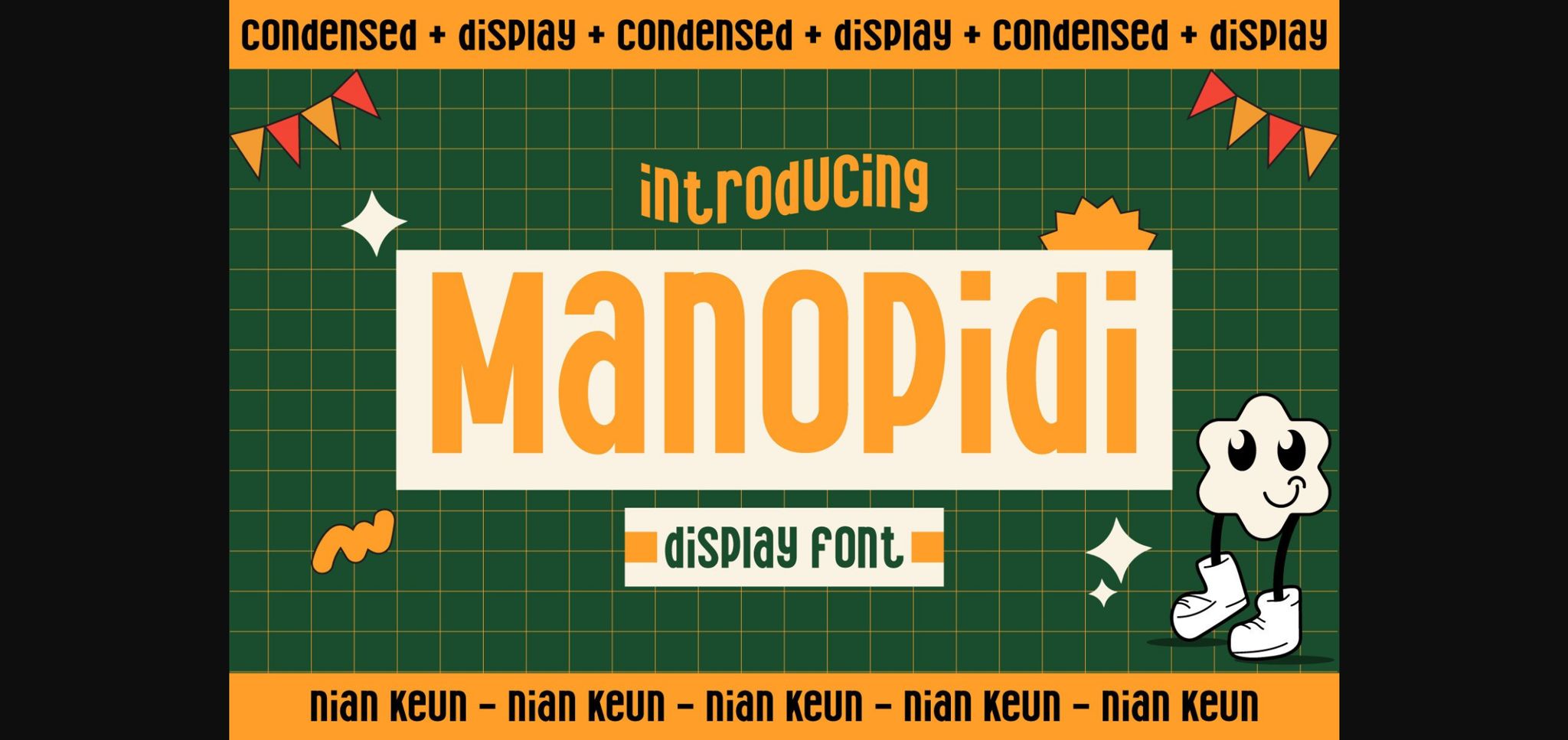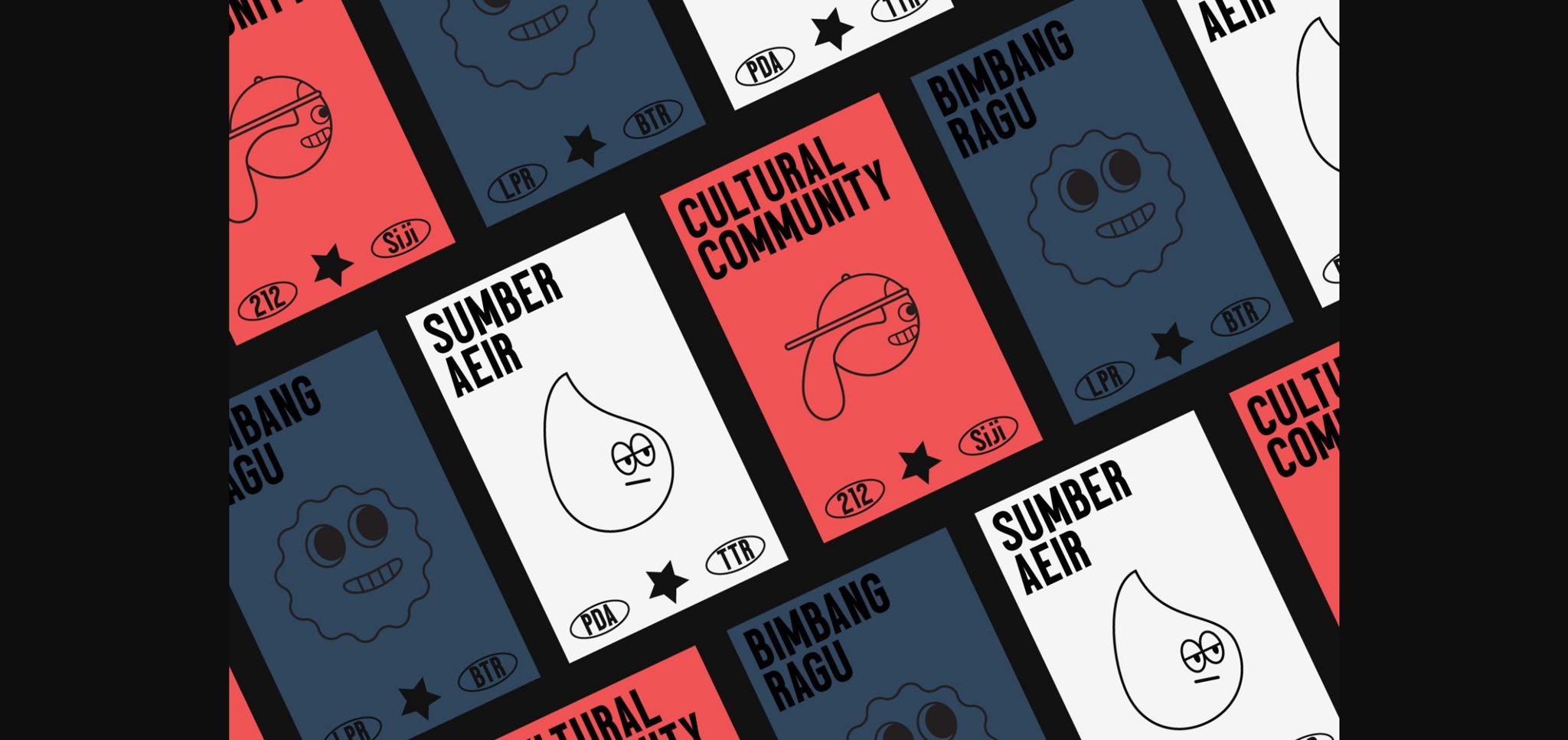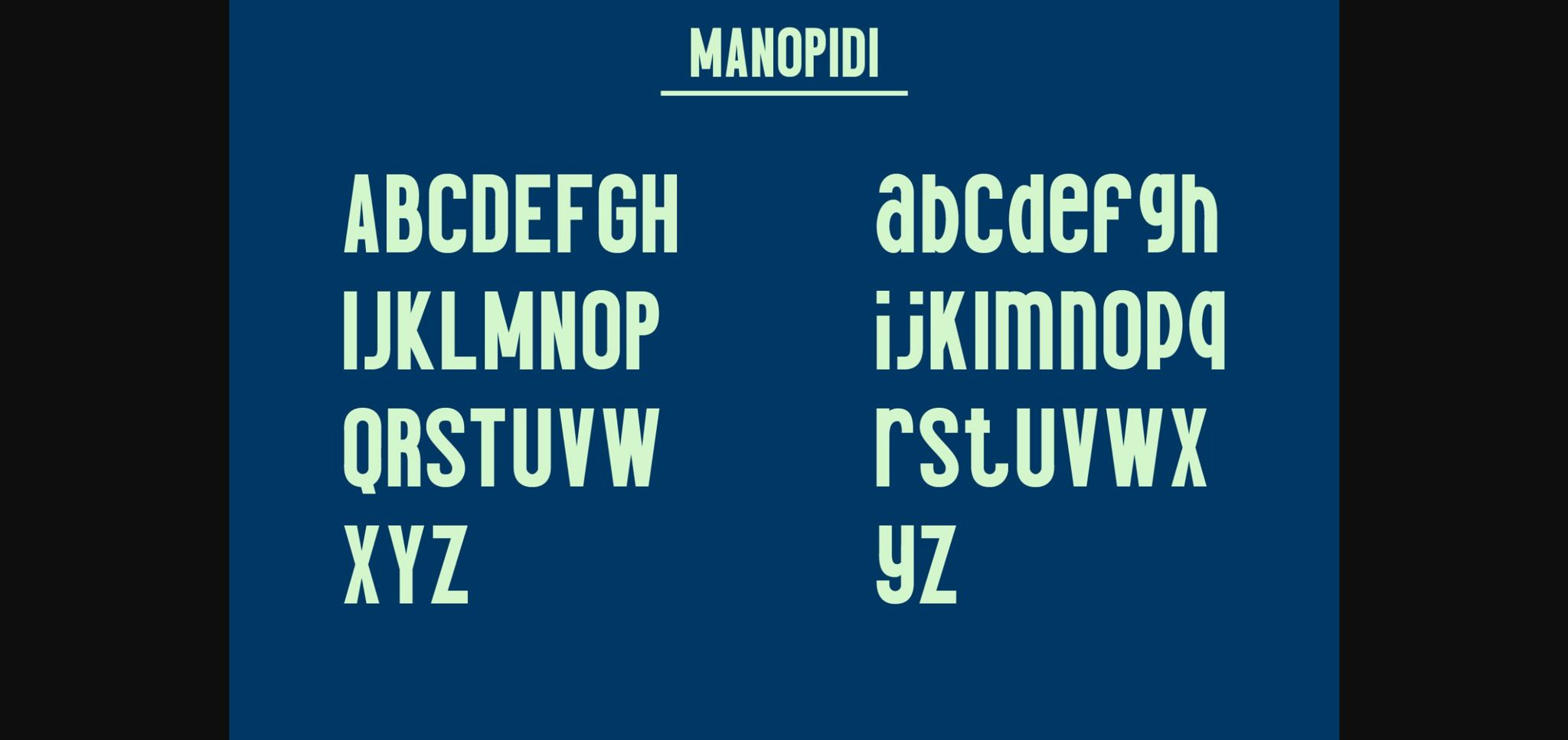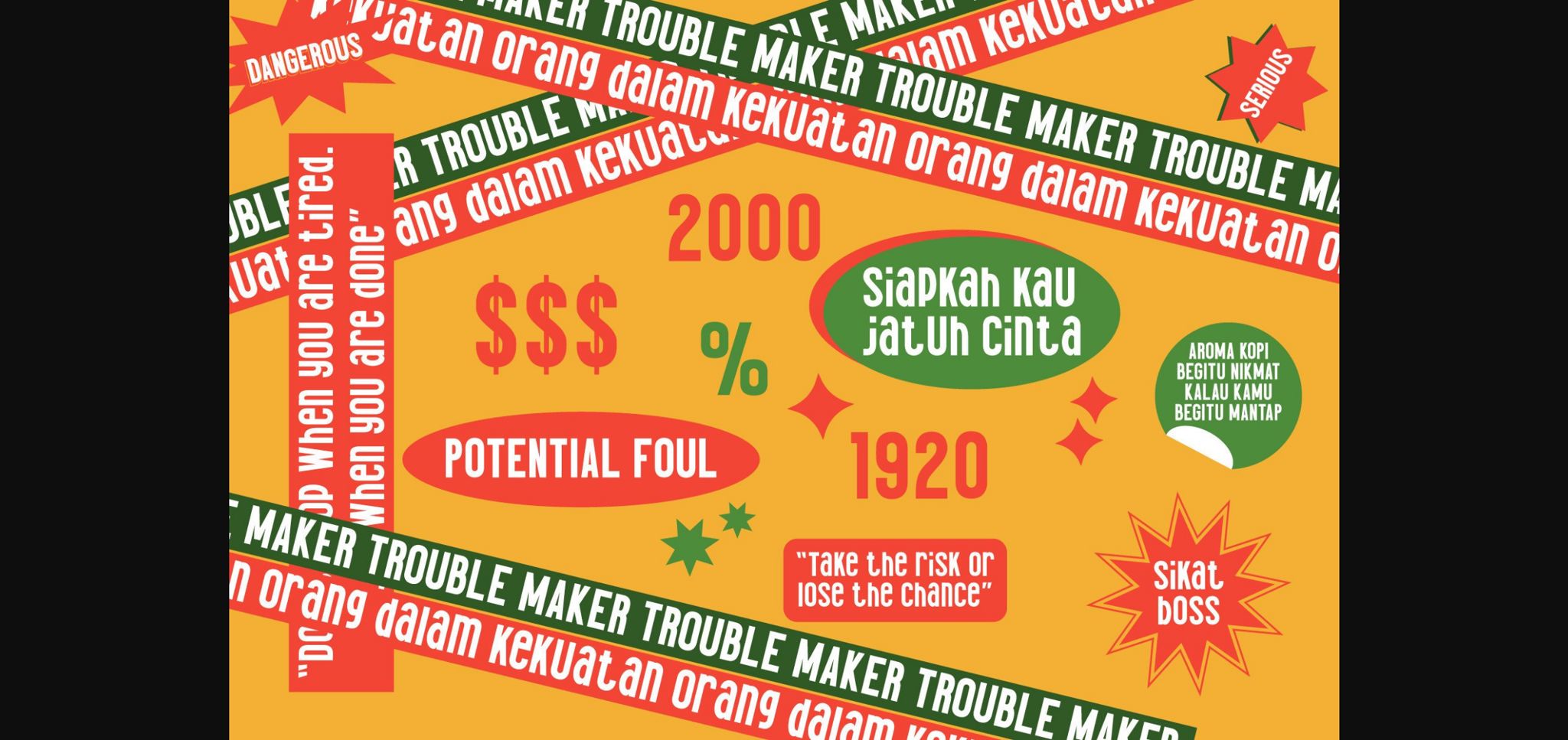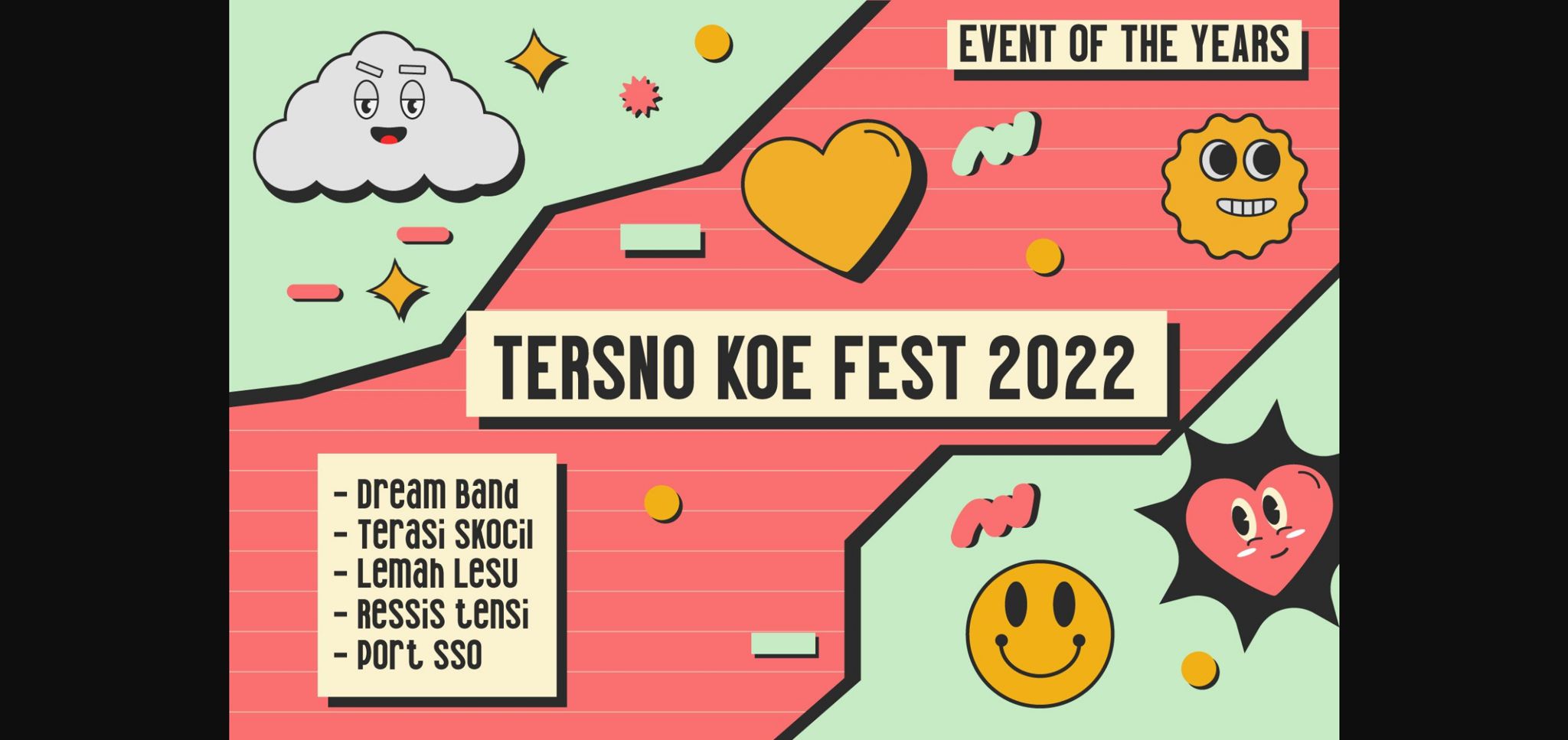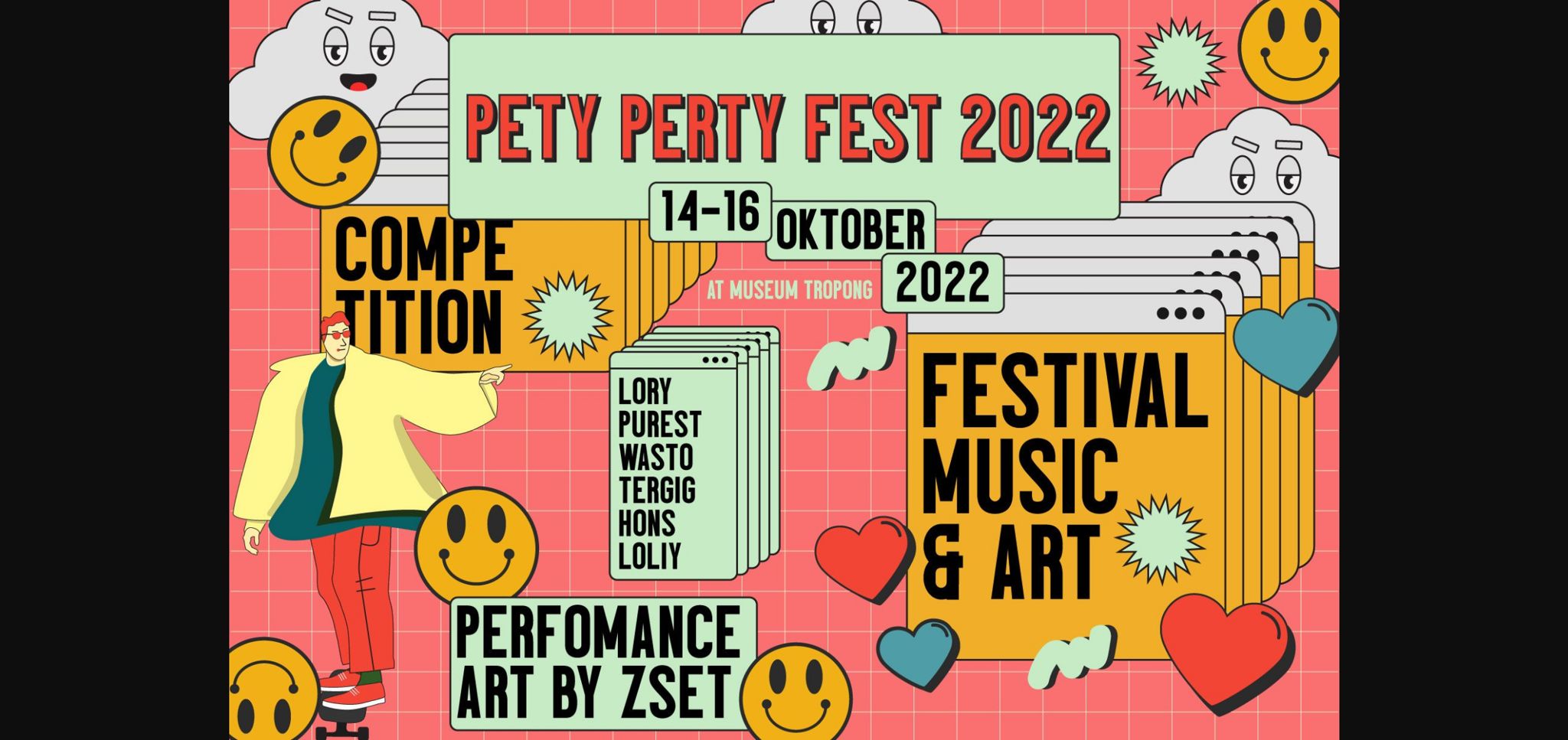
About Manopidi Font
Manopidi is a sans serif font with a condensed style that is firm with sharp corners. This font is conceptualized in a retro style by carrying a bold character. On the other hand, this font can also be used for headlines or any part of the project you are working on. You can use it on graphic designs, event posters, social media, logos, album covers, movies, and more.
Manopidi has a letter character that is made very unique with the size of the lowercase being the same as the uppercase. This is one of the unique characteristics of the Manopidi font.